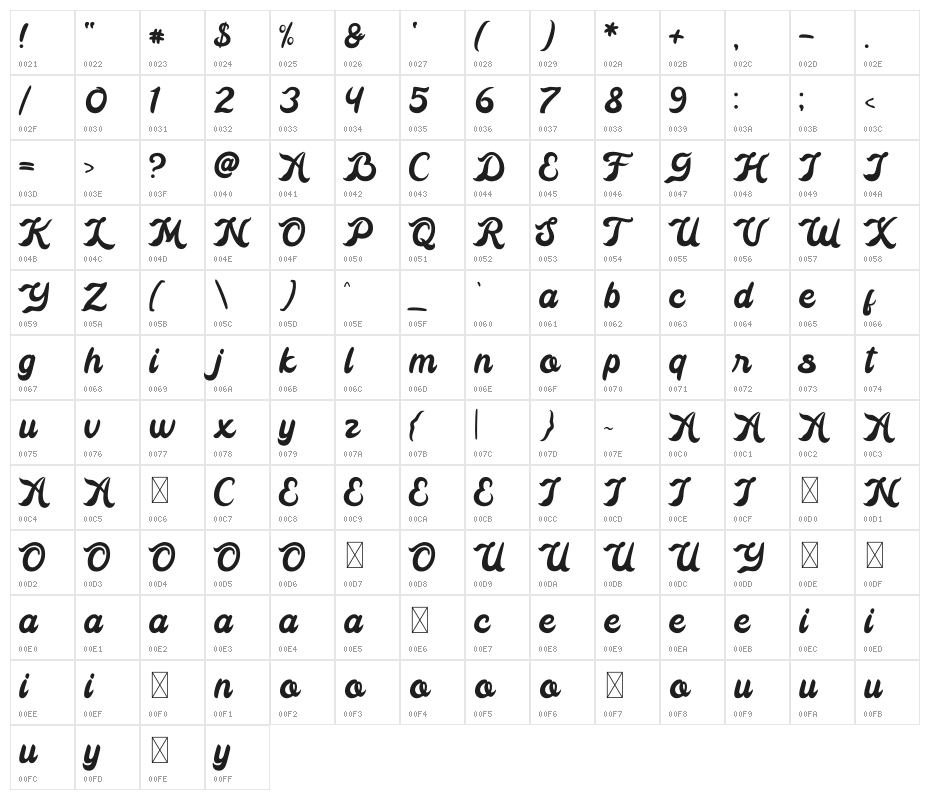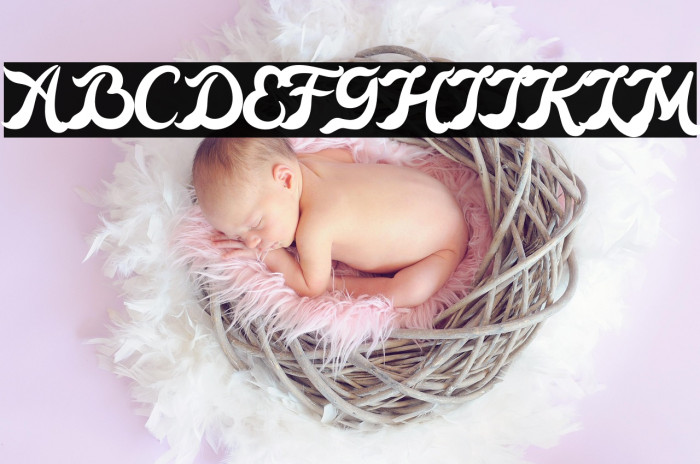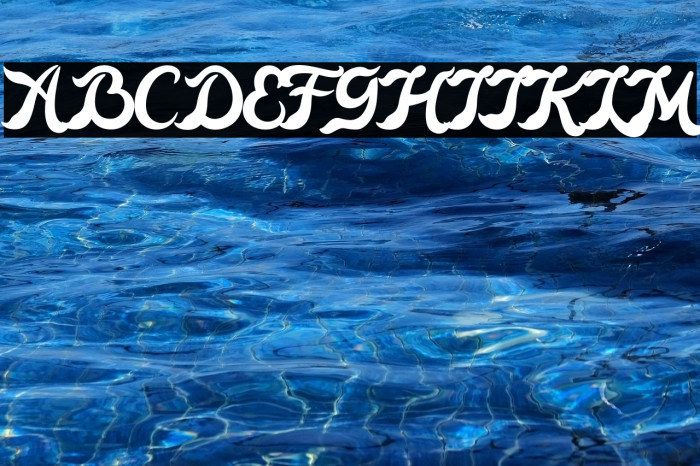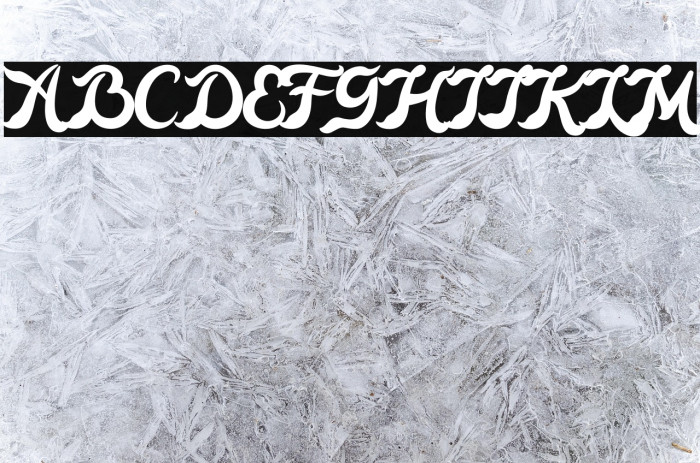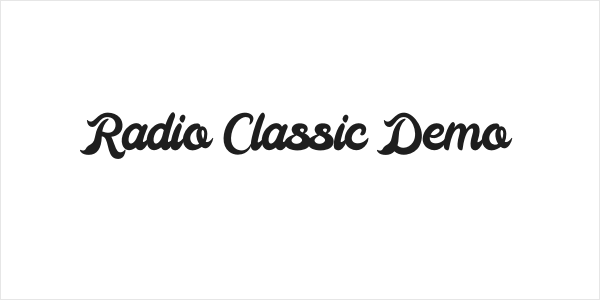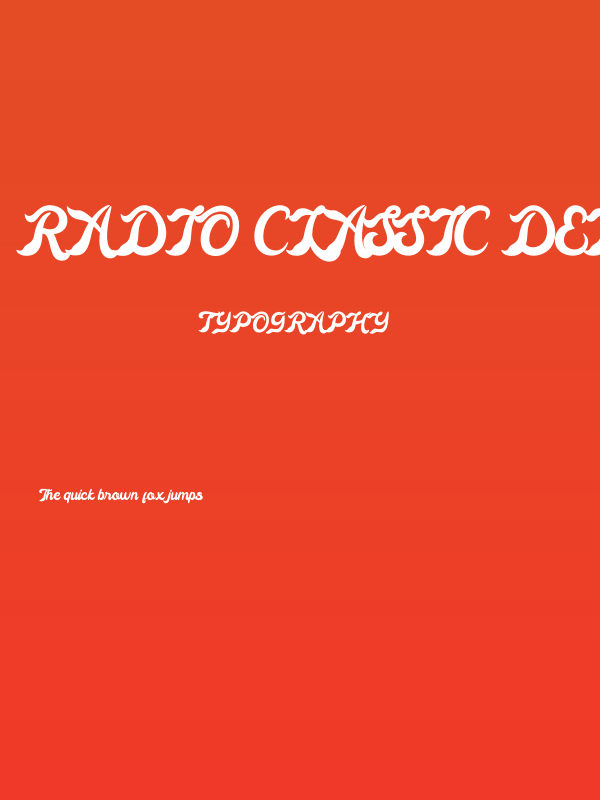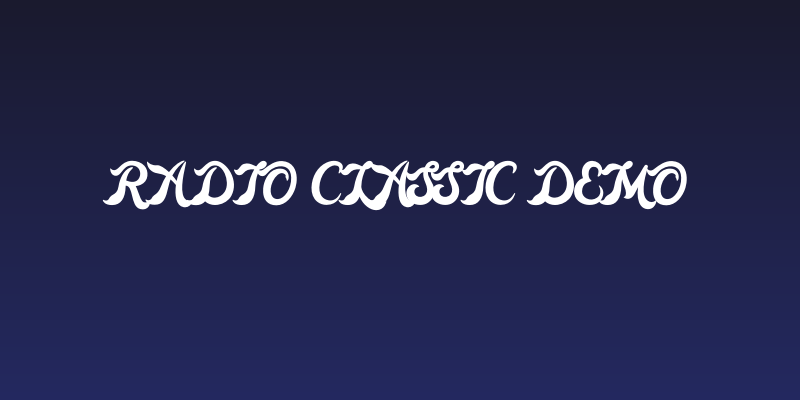
Radio Classic Demo Font
Radio Classic Demo Description
This font features a bold and flowing script style that exudes a sense of elegance and dynamism. The characters are interconnected with smooth, sweeping curves, giving it a cohesive and fluid appearance. The uppercase letters are particularly ornate, with intricate loops and flourishes that add a touch of sophistication. The lowercase letters maintain the same fluidity, ensuring readability while retaining the decorative nature. The numerals and special characters are consistent with the overall style, featuring similar curves and boldness. This font is ideal for projects that require a touch of elegance and flair, such as invitations, branding, and decorative headlines.